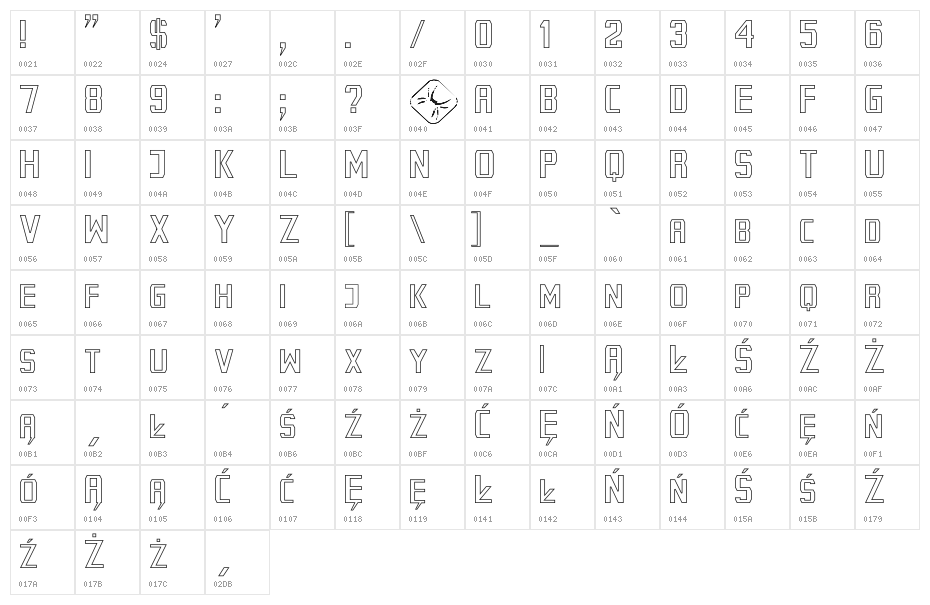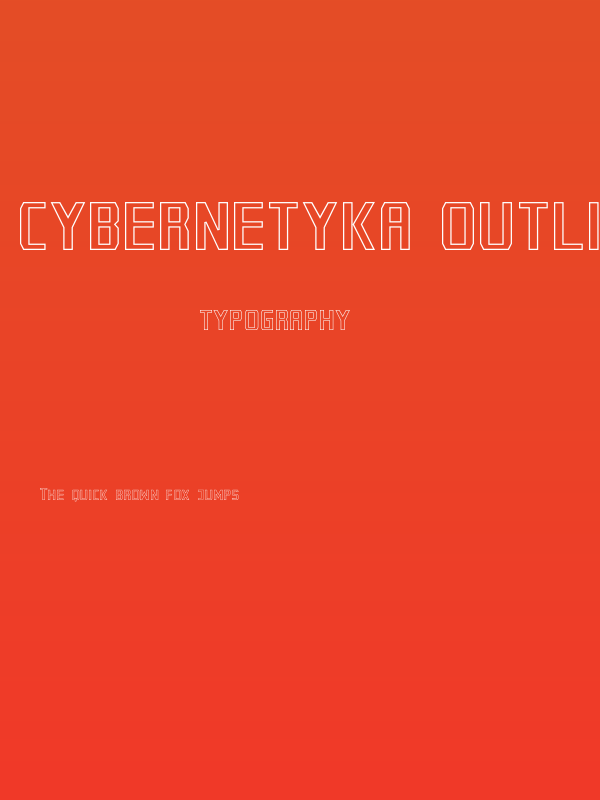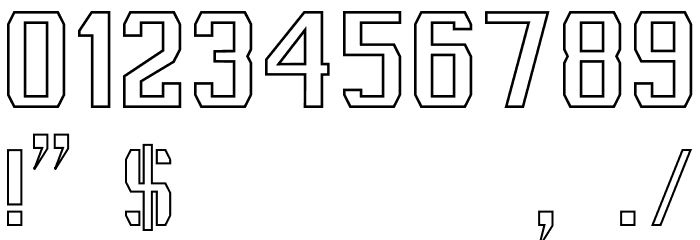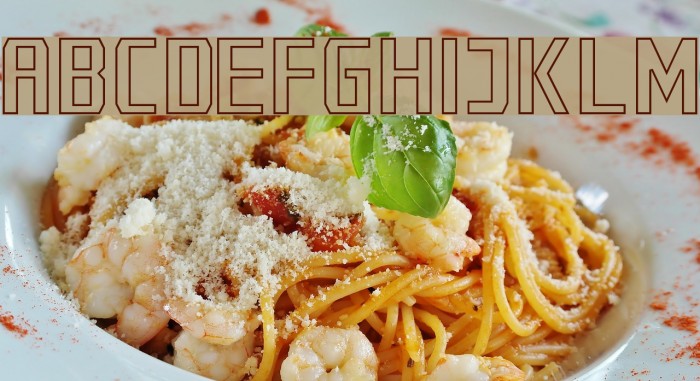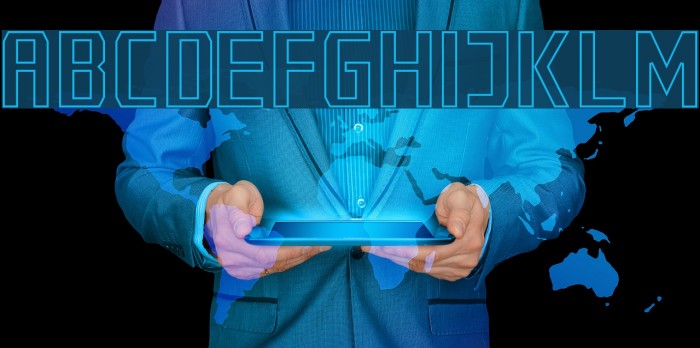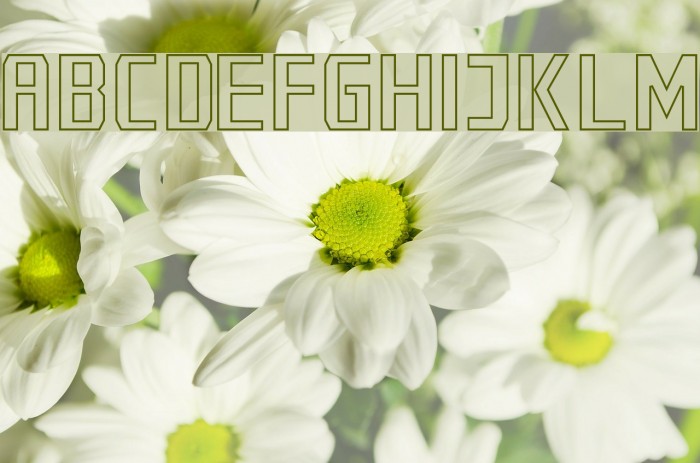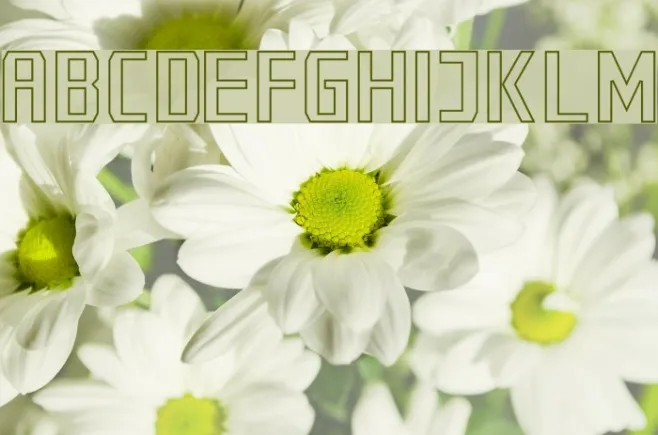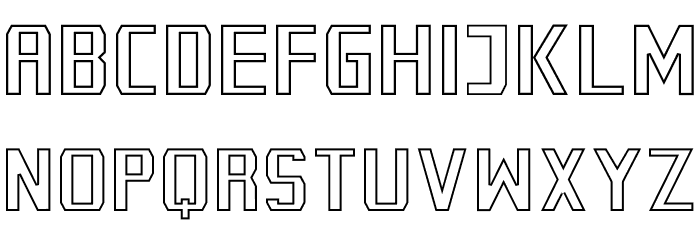
Cybernetyka Outline Font
Cybernetyka Outline Description
This font features a futuristic, geometric design with an outline style that gives it a digital, cybernetic appearance. The characters are constructed with straight lines and sharp angles, creating a highly structured and modern look. The uppercase and lowercase letters maintain a consistent height and width, enhancing the uniformity of the design. The numerals and special characters follow the same geometric pattern, ensuring a cohesive appearance across all glyphs. The outline style adds a unique dimension, making it suitable for projects that require a tech-savvy or avant-garde aesthetic.
| Proposed Projects | Ideal for tech-themed designs, digital interfaces, video game graphics, and modern branding projects. |